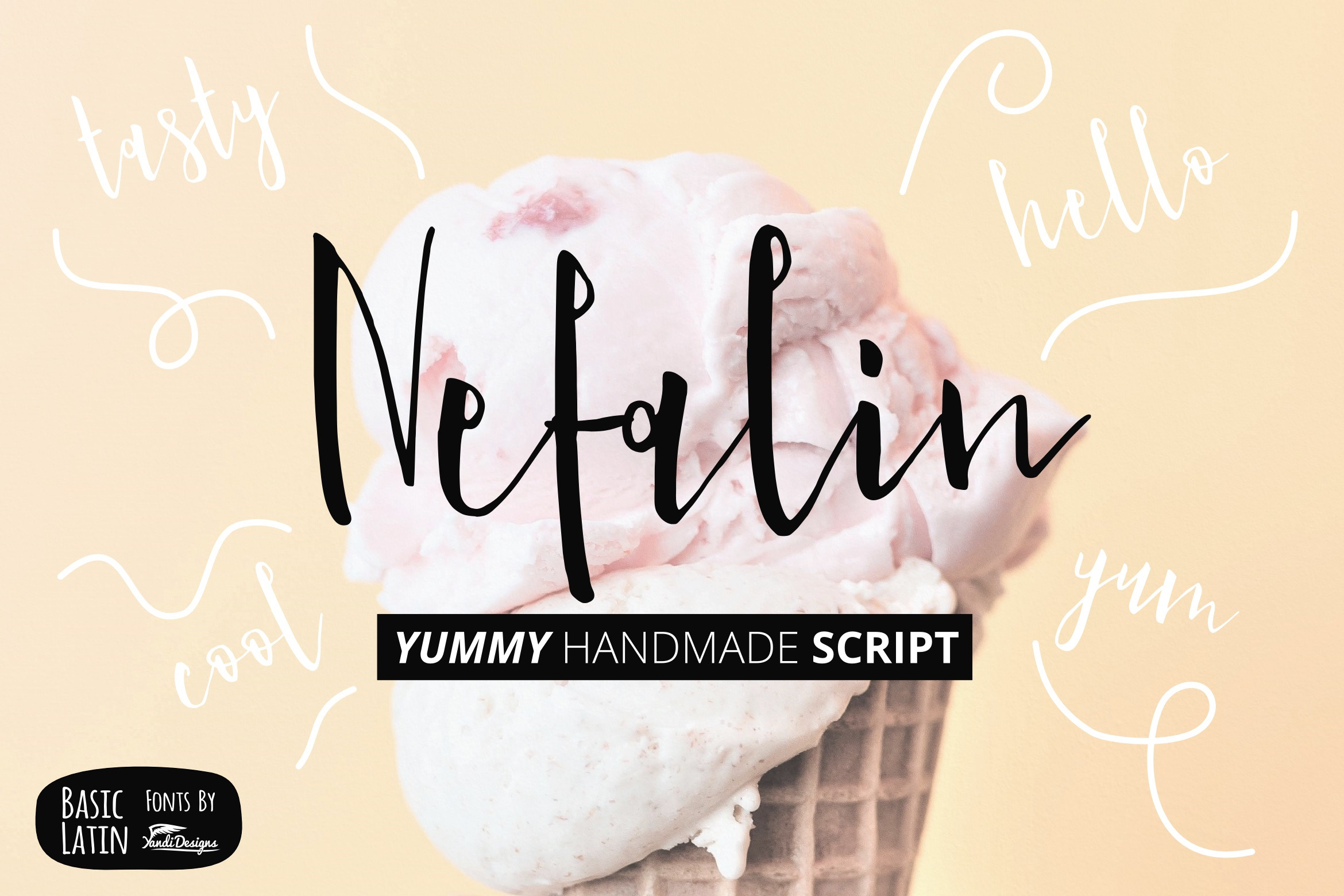
Nefalin Yummy Script Font
Modern handmade script font , suitable for many project , quotes, logo , doodle, heading , title etc.
Basic Latin (Standard English character , number, symbol)